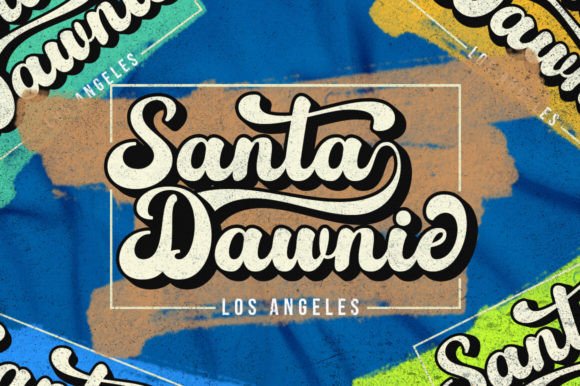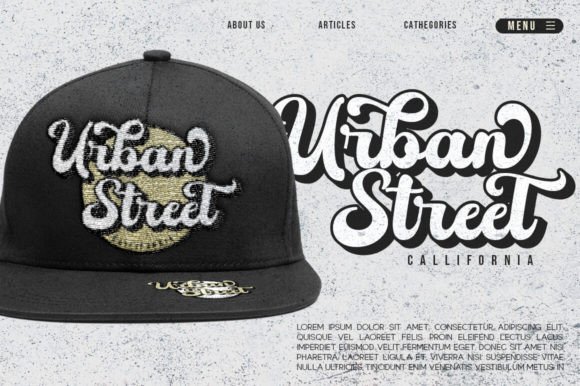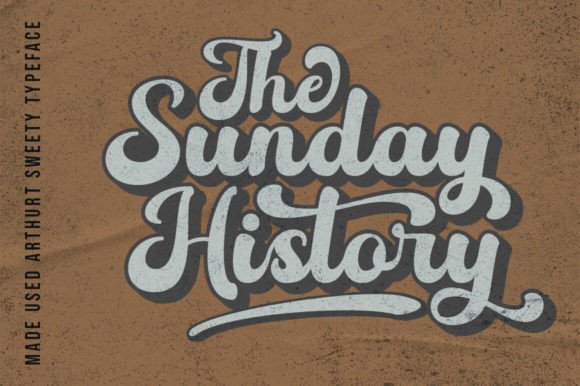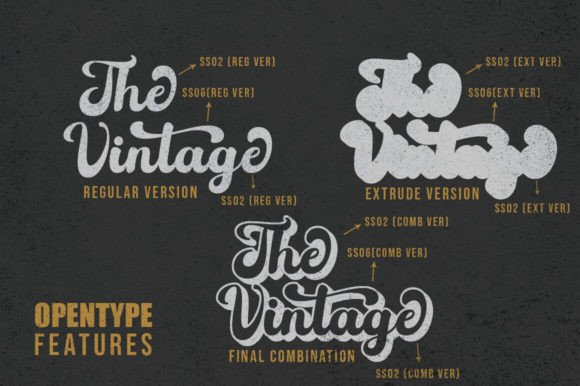
Arthur Sweety Font
Arthur Sweety Script is a Modern classy font with strong styles and circle movement. It allows you to create hand lettering in an instant. The idea is to help designers combine and incorporate all fonts into their creative work. Arthur Sweety Script Font is a hand-lettered bold and smooth script. This font is awesome for your creative projects such as Logotype, Branding, Packaging, Merchandise, labels, and much more.